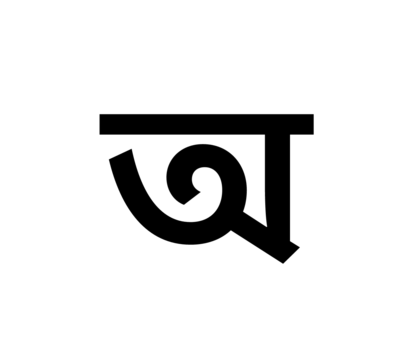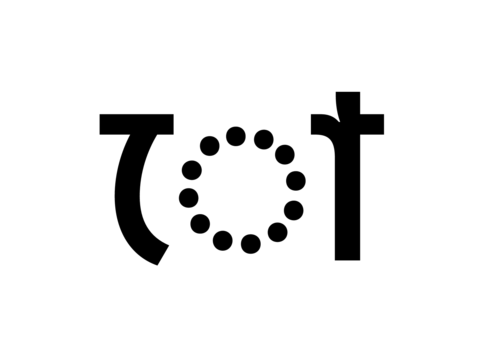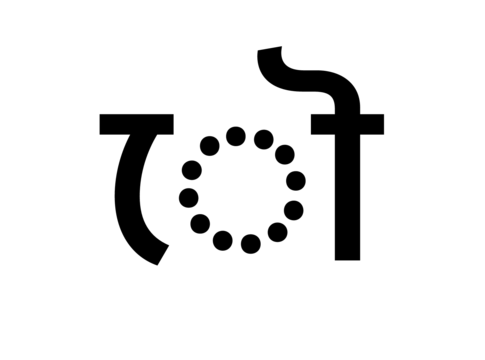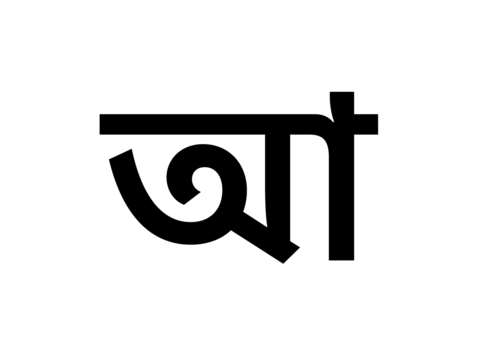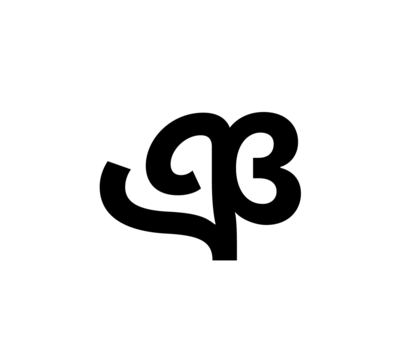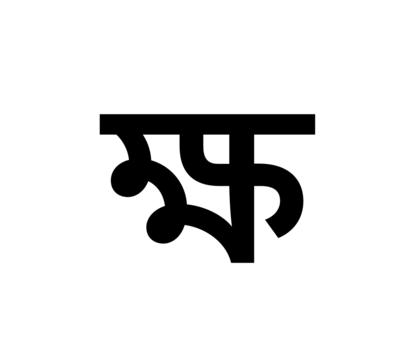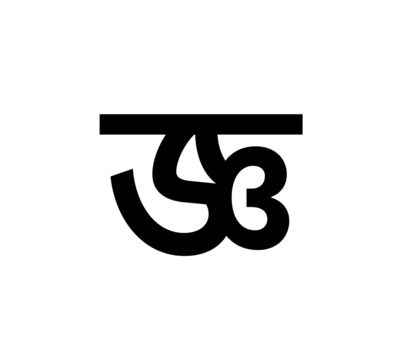
Kohinoor Bangla is an all-around Bengali for software engineers and branding specialists. Its letterforms feature open counterforms, and strokes with low contrast. Thanks to its clear appearance, the fonts are easy to work with, and their results are inviting to read. Kohinoor Bangla is an ideal choice for use in text-heavy multilingual projects, including app design, corporate design, editorial design, signage systems, and television subtitling. Each font contains 730 glyphs, offering a character set fully supporting all necessary Bengali-script conjuncts and ligatures. Kohinoor Bangla is part of our larger Kohinoor family, containing fonts for the Arabic, Devanagari, Gujarati, Gurmukhi, Latin and Tamil scripts. Taken together, they support hundreds of languages that are spoken natively by billions of people around the world. Before ITF released Kohinoor Bangla as a retail product, its fonts were embedded inside of several popular products from Apple, Sony, and other manufacturers.
| Family Name | Kohinoor Bangla |
| Designer(s) | Satya Rajpurohit |
| Classification | Sans |